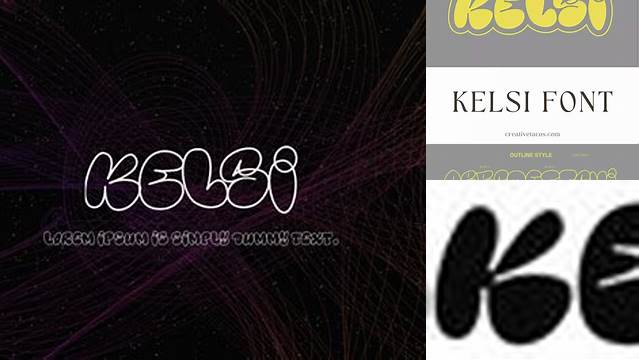
Hey guys! Are you on the hunt for a cool, stylish font to spice up your designs? Look no further because we're diving headfirst into the world of the Kelsi Fill font! And the best part? You can snag a free download! This article is your ultimate guide to everything Kelsi Fill – where to get it, how to use it, and why it's a fantastic choice for your creative projects. So, buckle up, and let's get started!
What Makes Kelsi Fill Font So Special?
Alright, let's talk about what makes the Kelsi Fill font stand out from the crowd. This font is a modern, stylish typeface known for its unique filled-in design. Unlike regular fonts, the characters in Kelsi Fill are filled, giving them a bold and eye-catching appearance. This feature makes it ideal for headlines, logos, and any design element that needs to grab immediate attention. It has a certain playful yet elegant vibe, making it versatile for various applications. Whether you're working on a website, a social media graphic, or a print project, the Kelsi Fill font can add a touch of sophistication and personality.
The design of Kelsi Fill is carefully crafted, ensuring readability even with the filled-in style. The designers have struck a perfect balance between aesthetics and functionality, so you don't have to sacrifice legibility for visual appeal. This font is not just about looks; it's about creating a memorable impression. The bold nature of the characters makes your text pop, ensuring your message is clearly conveyed. It's like giving your words a megaphone! Because it’s free to download, it's an accessible option for designers of all levels. From experienced professionals to enthusiastic beginners, anyone can experiment with this font and elevate their designs.
Kelsi Fill provides a fantastic blend of style and usability. The filled-in design helps it stand out, and the readability ensures that your message is easily understood. You can't go wrong with the Kelsi Fill font! So, what are you waiting for? Let's download the Kelsi Fill font for free!